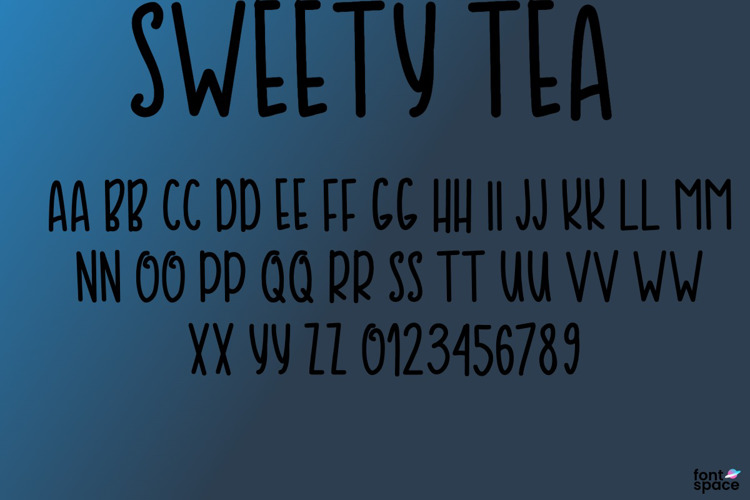
SWEETY TEA Font
About SWEETY TEA Font
Sweety Tea is a fun display typeface. It will lift your design and add a cheeky touch to each of your creations. Use this font for your designs and explore its endless possibilities.